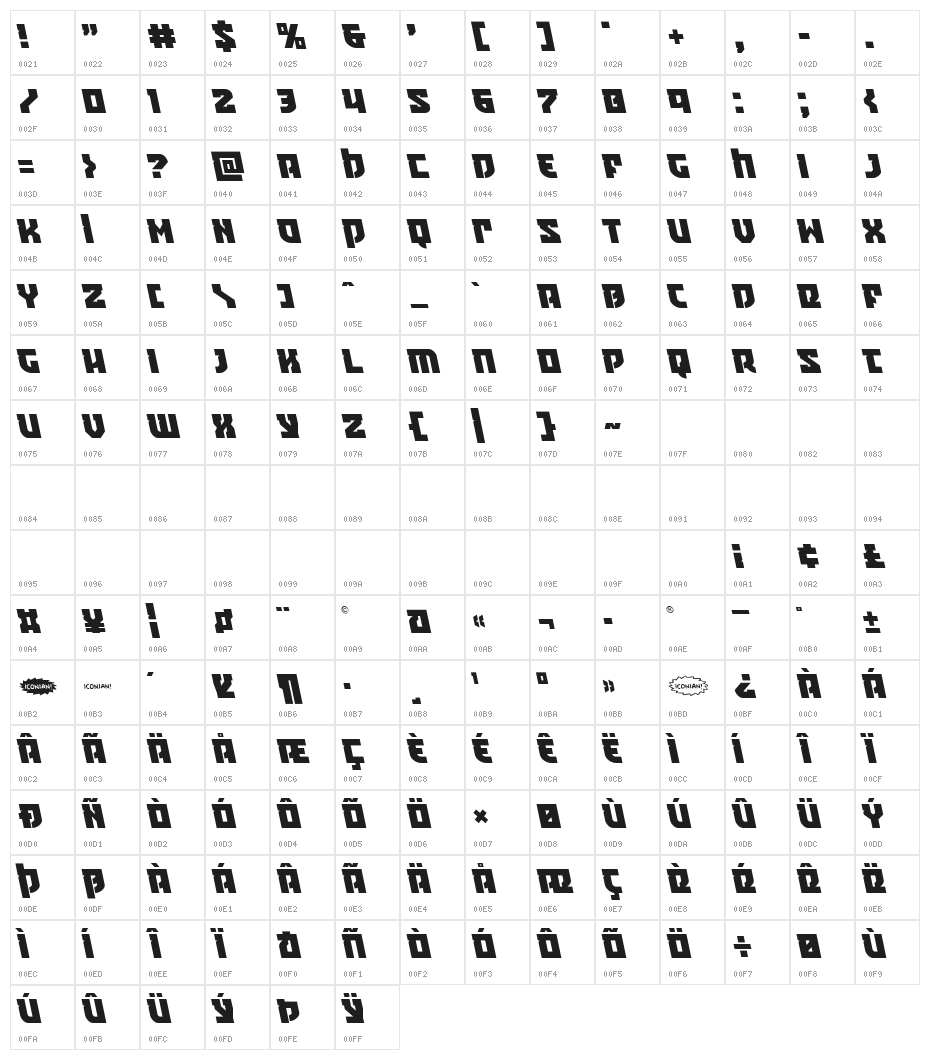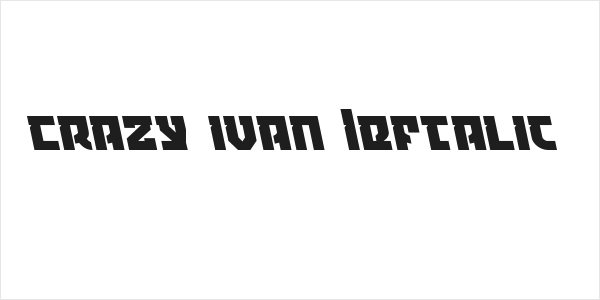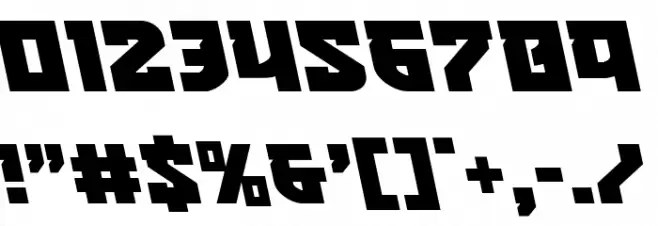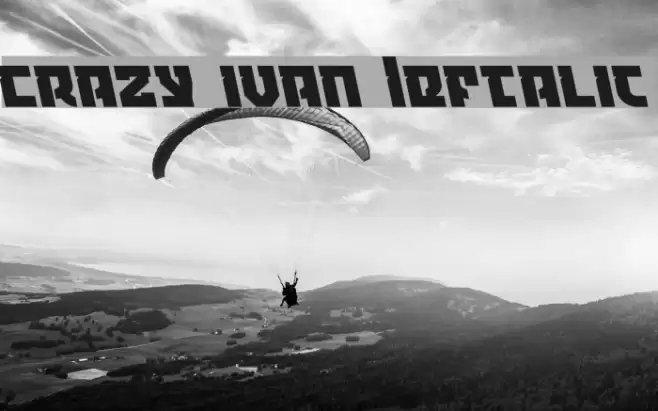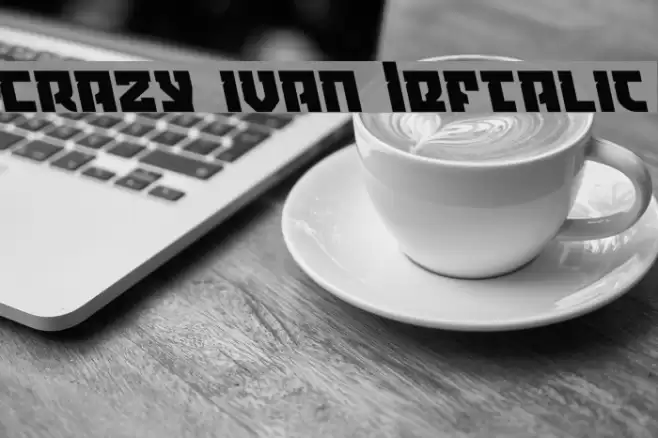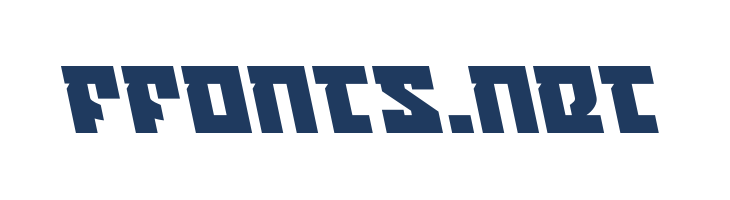
Crazy Ivan Leftalic Font
This font features a bold and dynamic style with a distinct slant to the left, giving it a unique and energetic appearance. The characters are blocky and angular, with sharp edges and a strong presence. The uppercase and lowercase letters maintain a consistent weight and style, while the numbers and special characters complement the overall design. The font's boldness and angularity make it suitable for attention-grabbing headlines and impactful designs. Its unique slant adds a sense of movement and urgency, making it ideal for projects that require a modern and edgy look.
| Proposed Projects | Ideal for posters, logos, video game graphics, and edgy branding. |